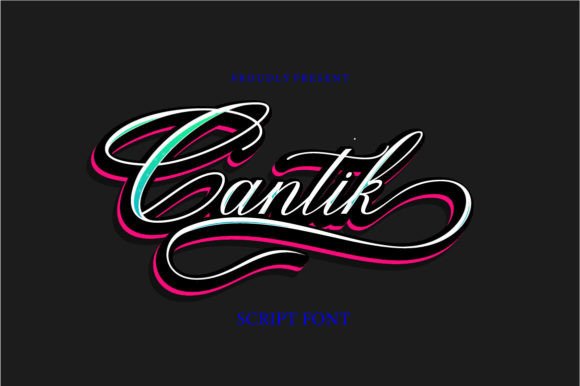
Behold, Cantik Font, the epitome of elegance and sophistication, a script font that captivates with its graceful strokes and timeless charm. Created by the visionary gunaloe12, Cantik is a masterpiece meticulously crafted to elevate your digital creations to new heights.
With its roots firmly planted in traditional calligraphy, Cantik retains the allure of handwritten letters while casting a resolutely modern and refreshing gaze. Each glyph exudes an air of refined craftsmanship, flowing seamlessly upon the page like a gentle dance.
Immerse yourself in the allure of Cantik, and let your imagination roam free. Design breathtaking logos that command attention, craft social media posts that radiate personality, or elevate your website with a touch of understated luxury. Cantik is the perfect companion for any project that demands a touch of elegance and refinement.